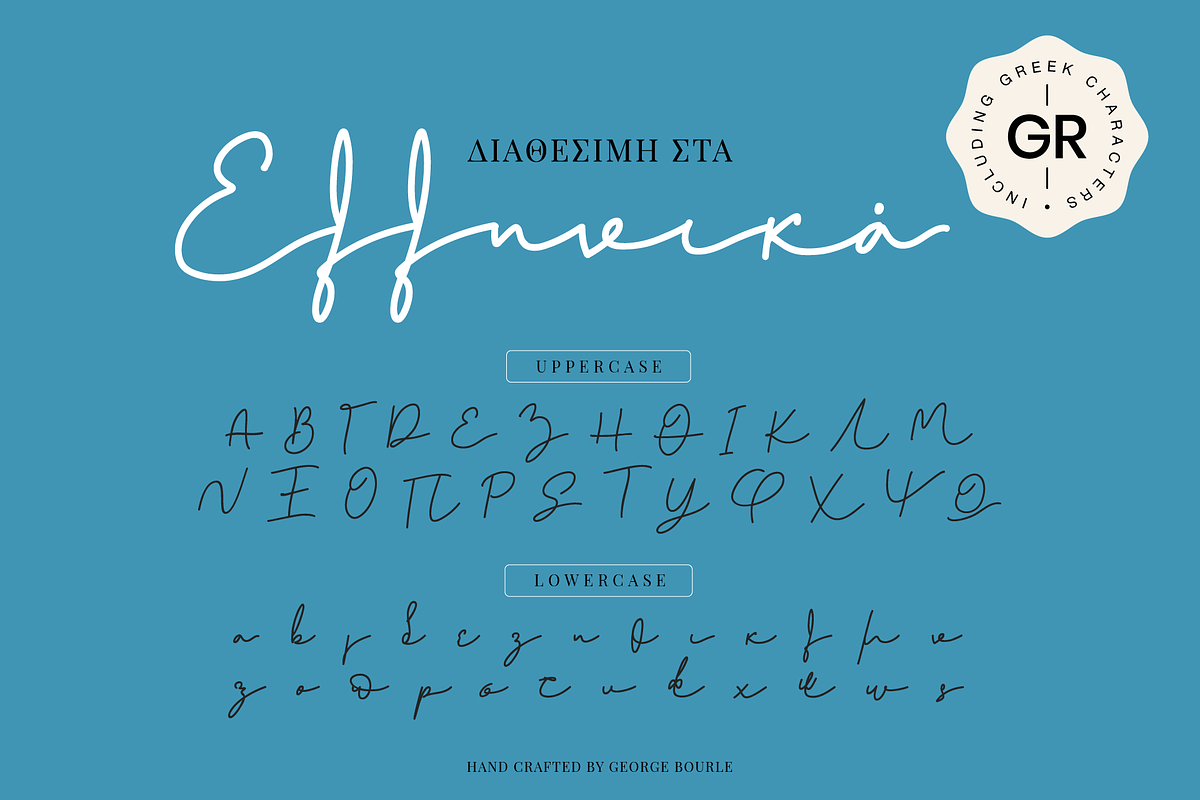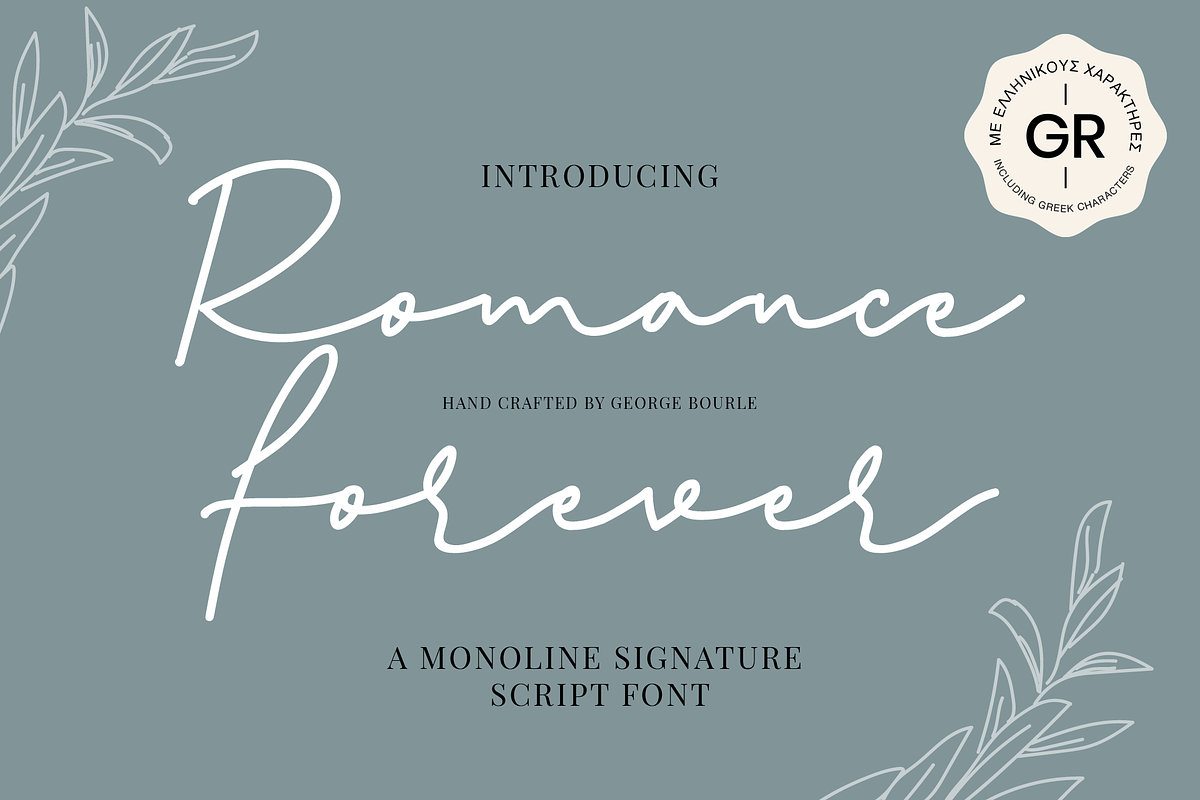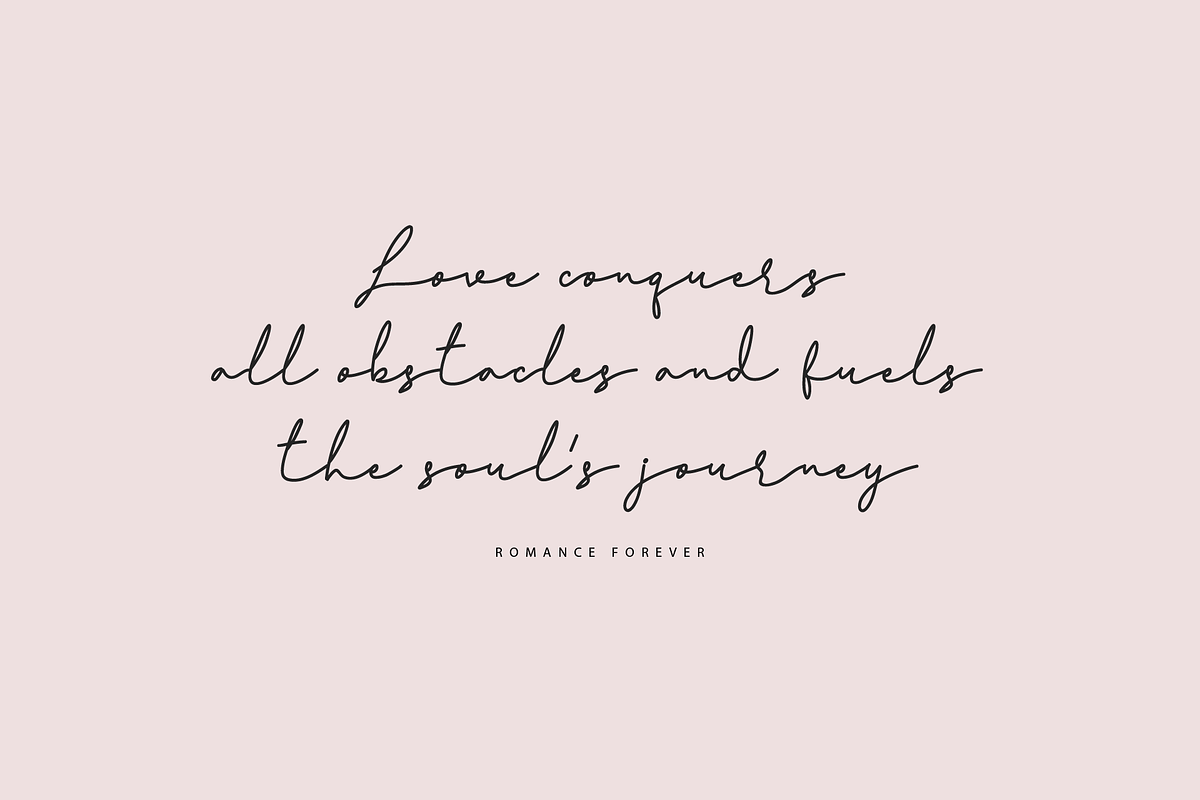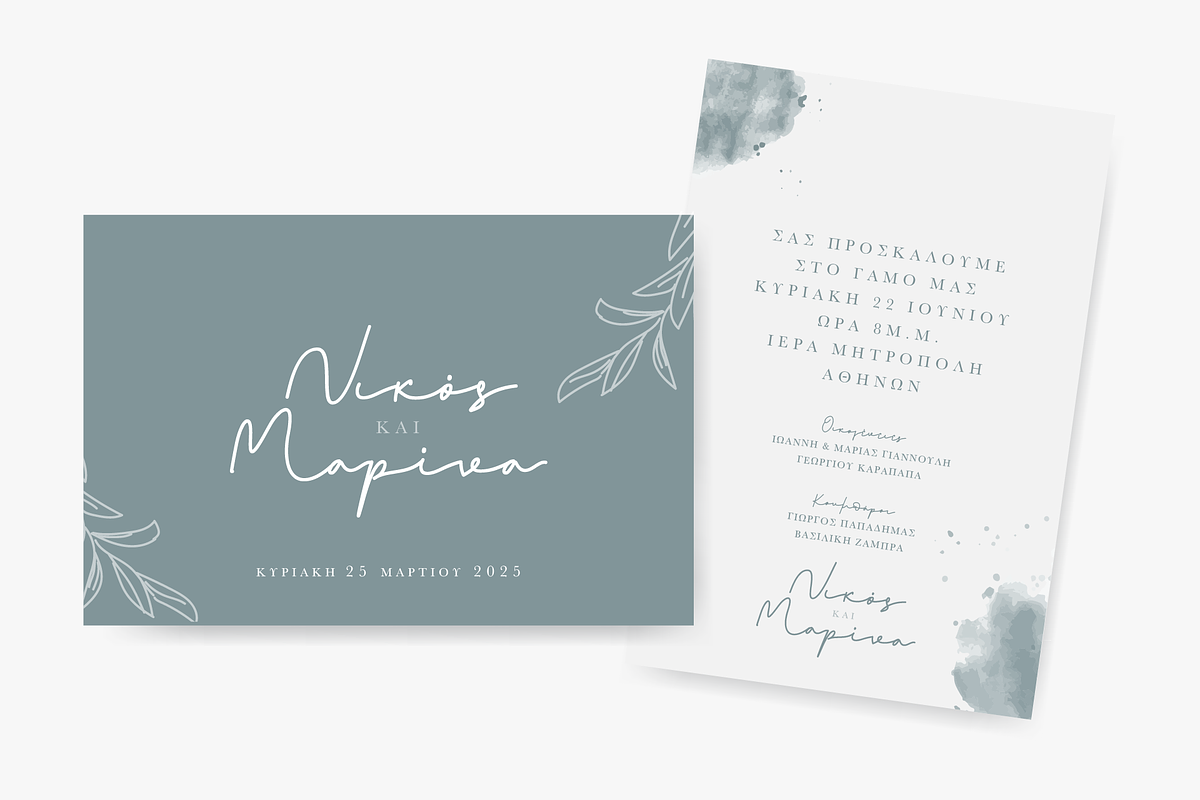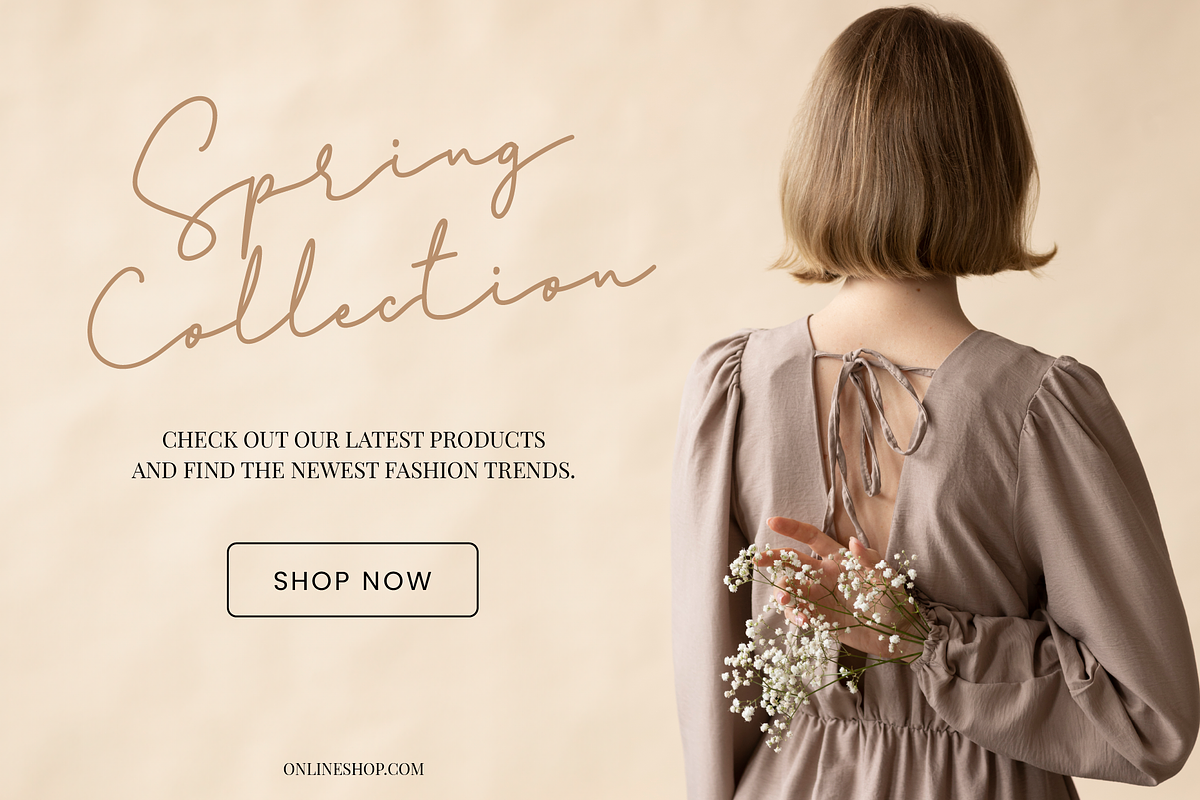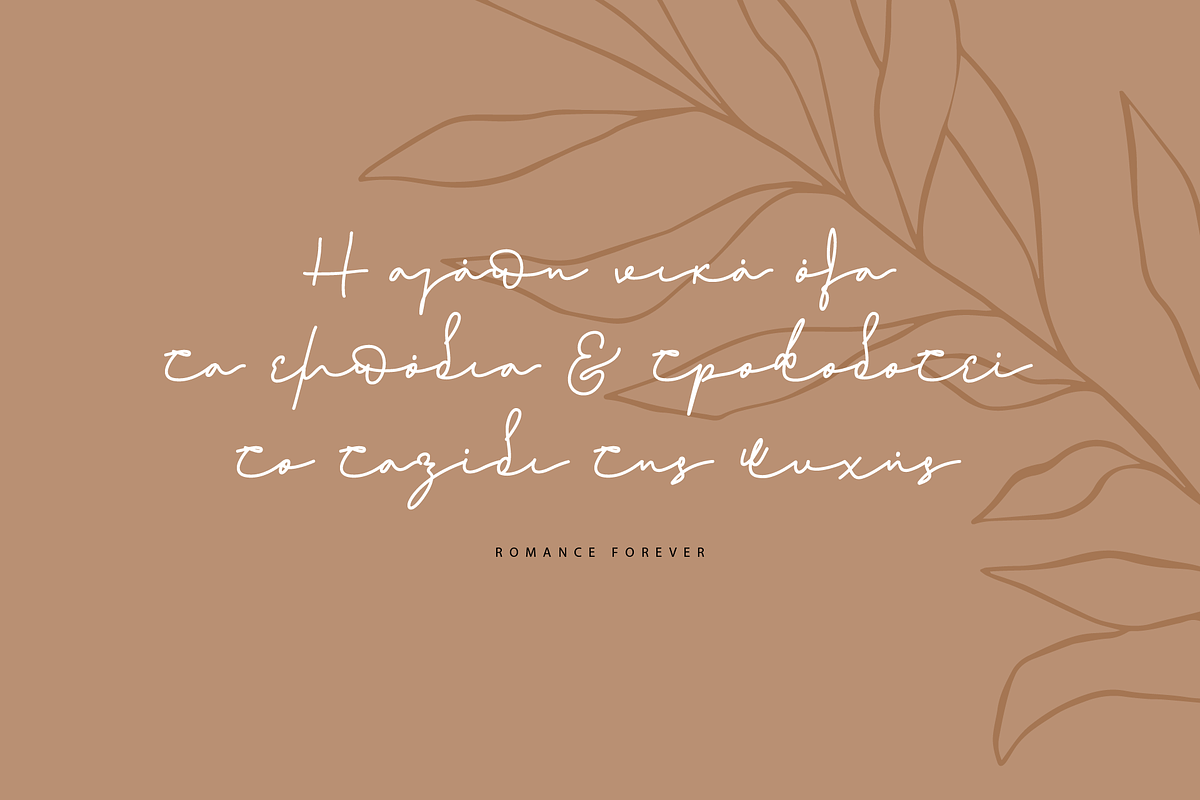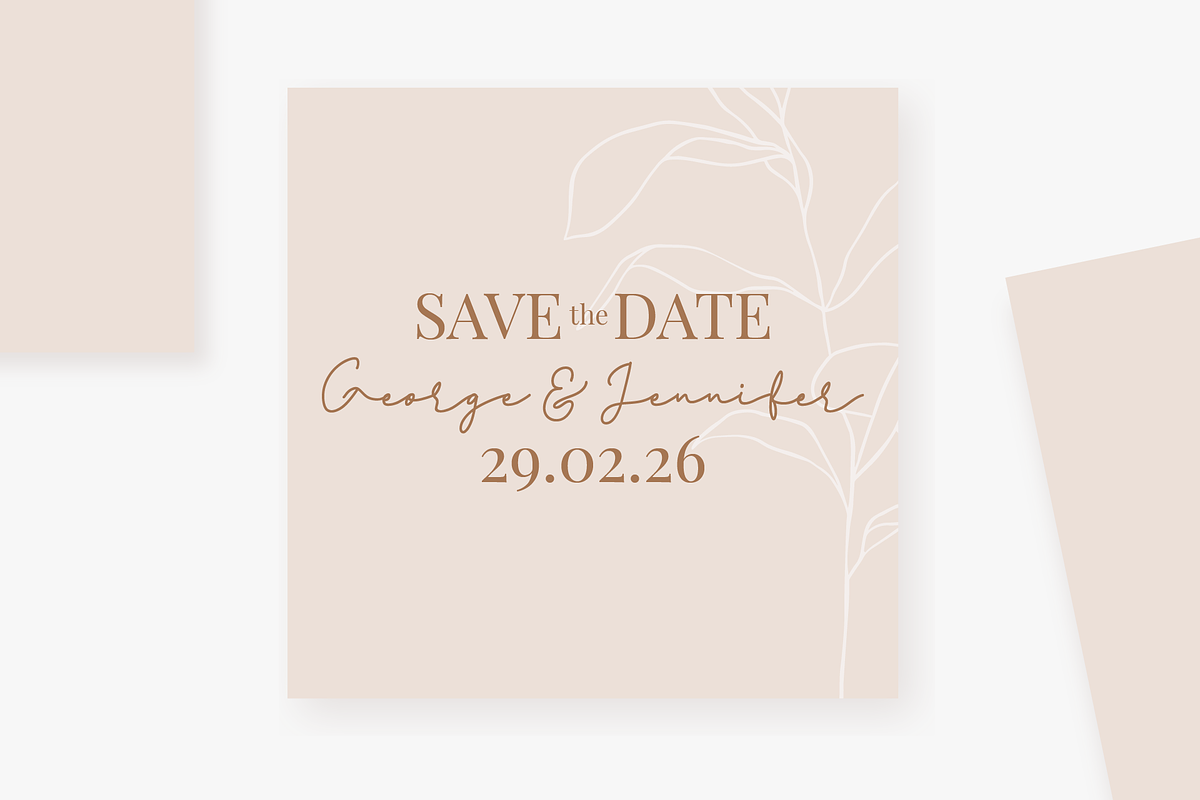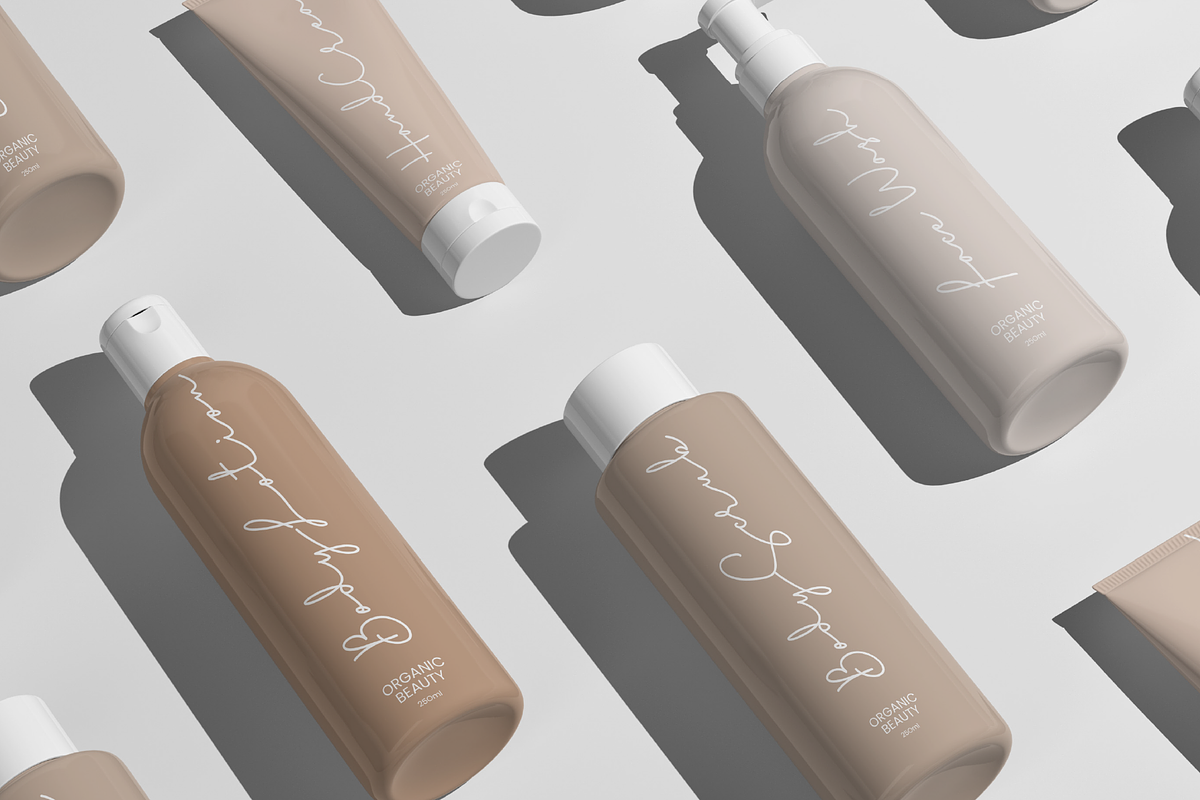
Romance Forever
Introducing Romance Forever, your new go-to font for adding a touch of elegance and style to your projects!
Get ready to infuse your designs with a timeless charm with this stunning monoline signature script font. Whether you’re crafting wedding invitations, branding materials, or social media graphics, Romance Forever is here to elevate your creations to the next level.
What sets Romance Forever apart? Well, aside from its captivating aesthetics, it boasts something truly special: full support for Greek alphabet! As a graphic designer with a passion for Greek lettering, I poured my expertise into creating fonts with Greek characters, making them perfect for a wide range of projects.